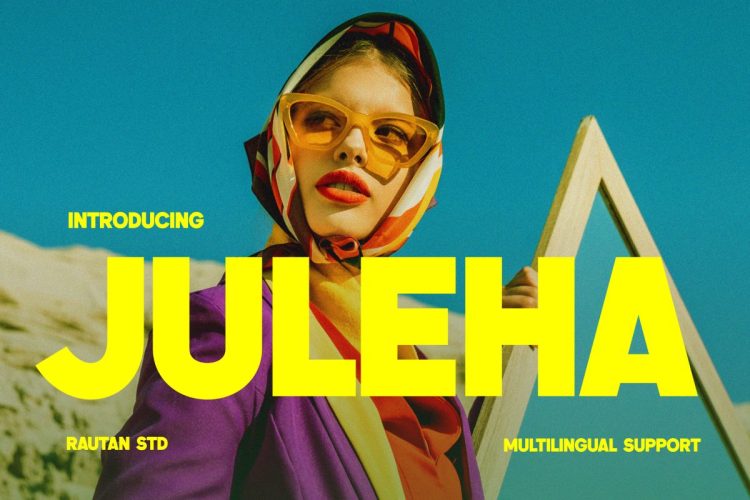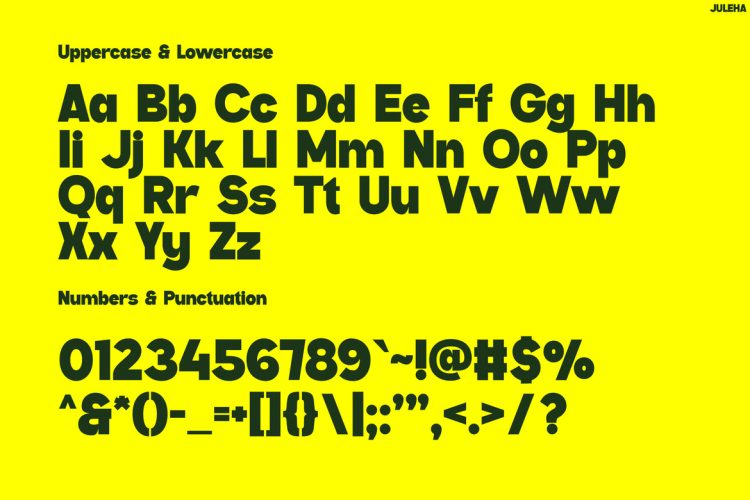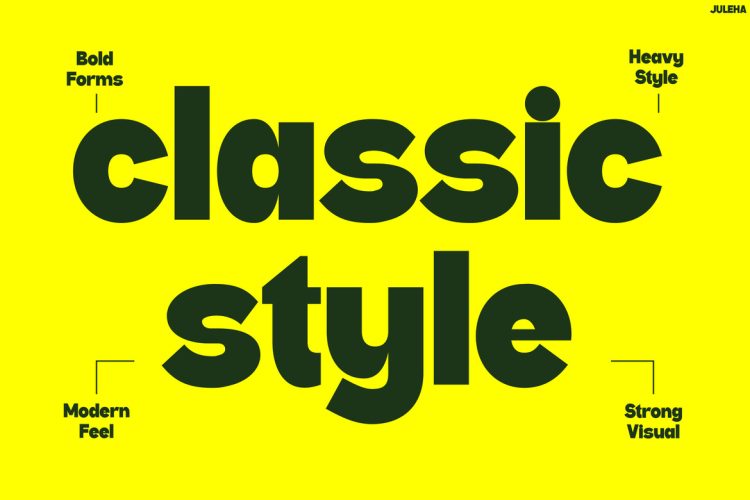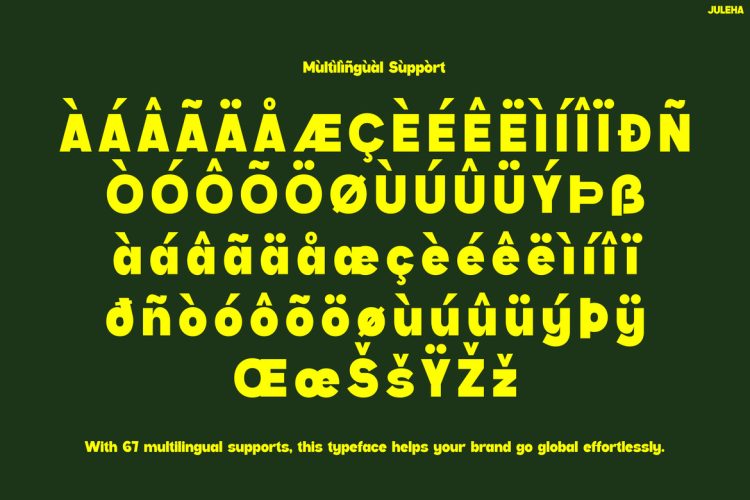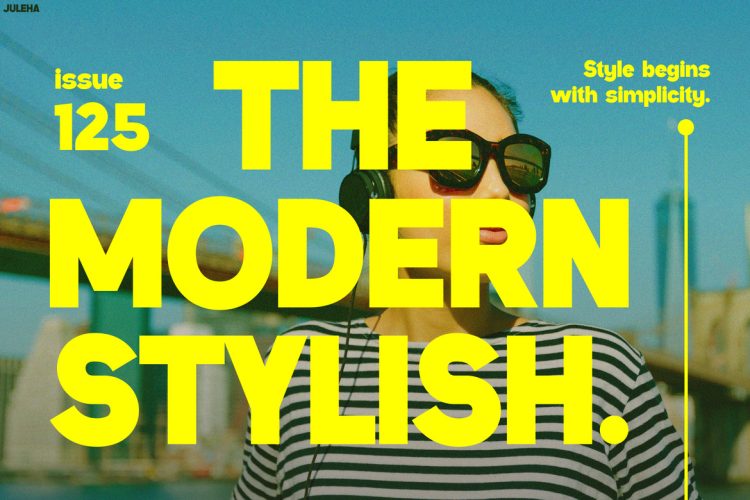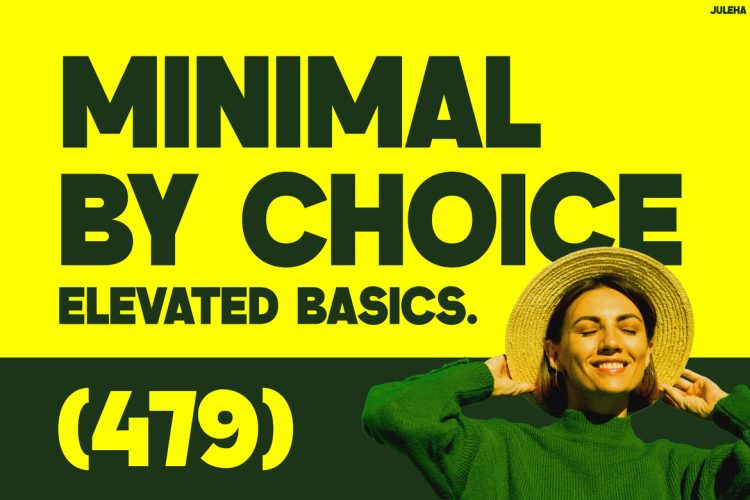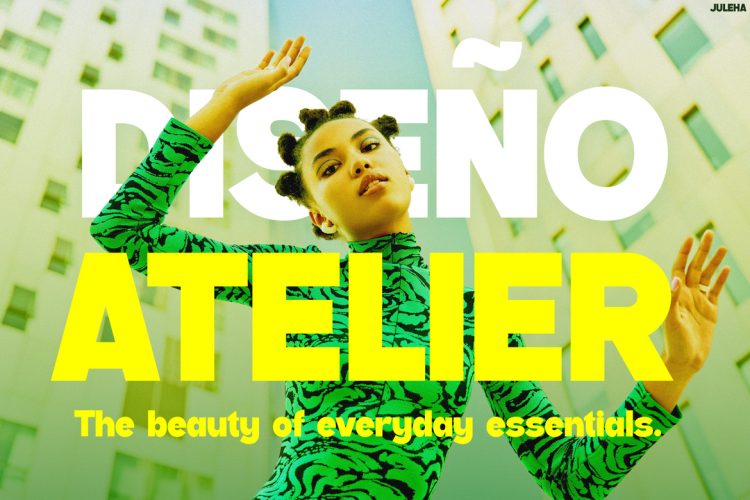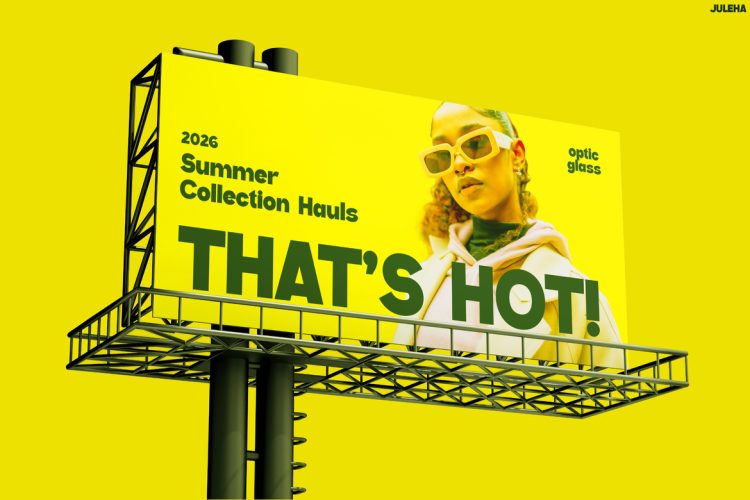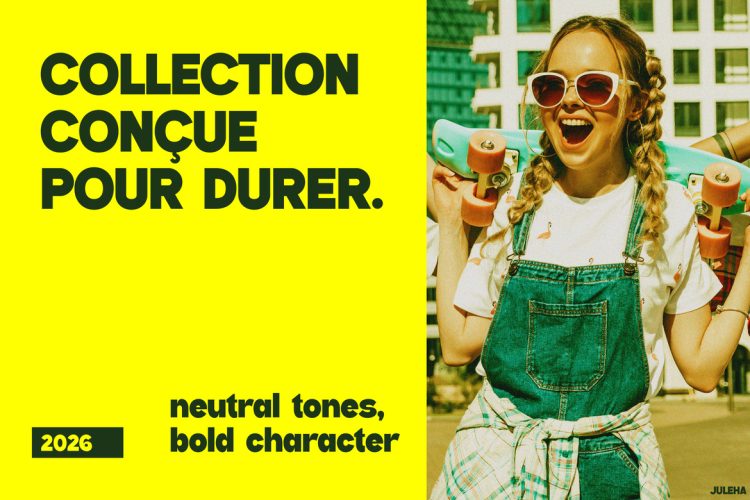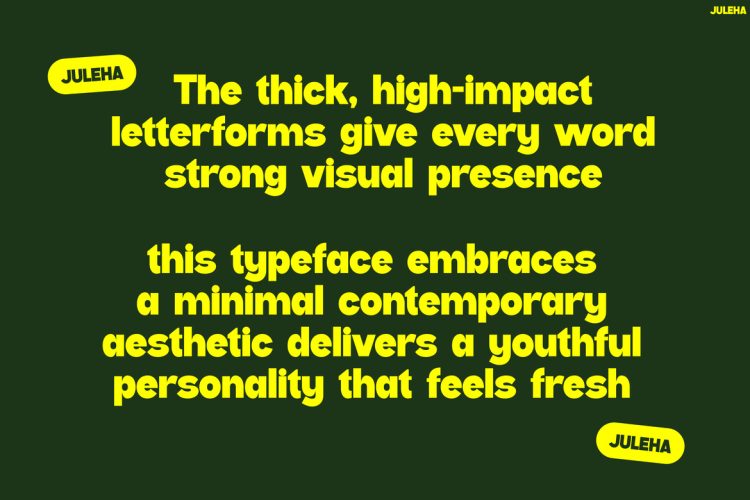
Juleha โ Bold Minimal Font for Scroll-Stopping Instagram Designs
Instagram Font Juleha is a bold modern display font that instantly grabs attention with its clean geometric shapes and strong visual presence. Moreover, its chunky letterforms create a contemporary aesthetic that feels fresh, stylish, and highly memorable. Unlike ordinary display fonts, Juleha balances boldness with excellent readability, making every headline stand out effortlessly. As a result, your designs become more engaging while maintaining a clean and professional appearance. Whether you’re creating digital or print projects, this typeface delivers a confident and modern personality, it includes Multilingual Support for 67 languages, so you can build a consistent identity for audiences around the world.
Why You’ll Love It
Furthermore, Juleha is designed for creators who value simplicity without sacrificing impact. In addition, its versatile style fits branding, Instagram content, posters, editorial layouts, packaging, advertising, and fashion campaigns. Not only does it enhance visual identity, but it also helps communicate your message with clarity and confidence. Therefore, it is an excellent choice for designers, content creators, creative agencies, startups, fashion brands, and marketers looking for a modern display font with lasting appeal.